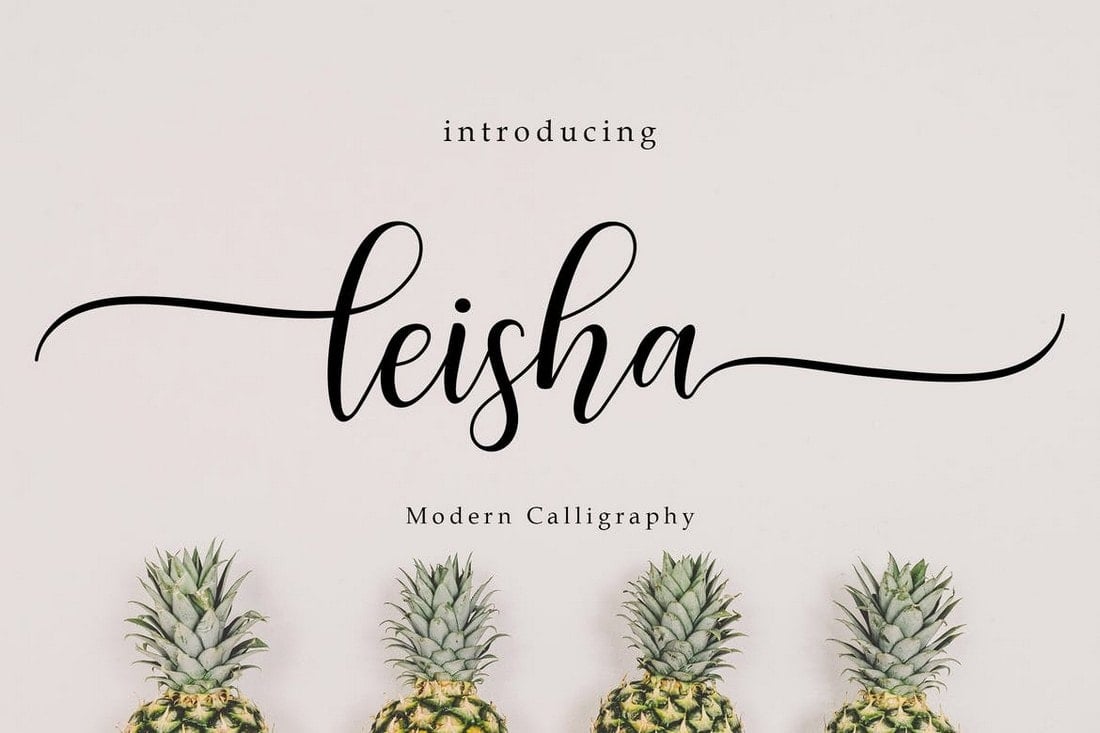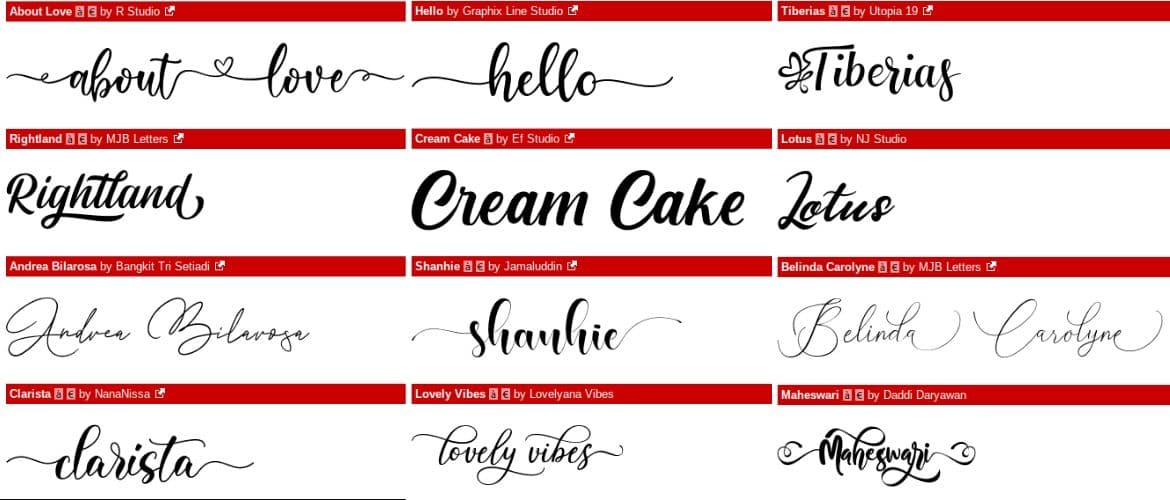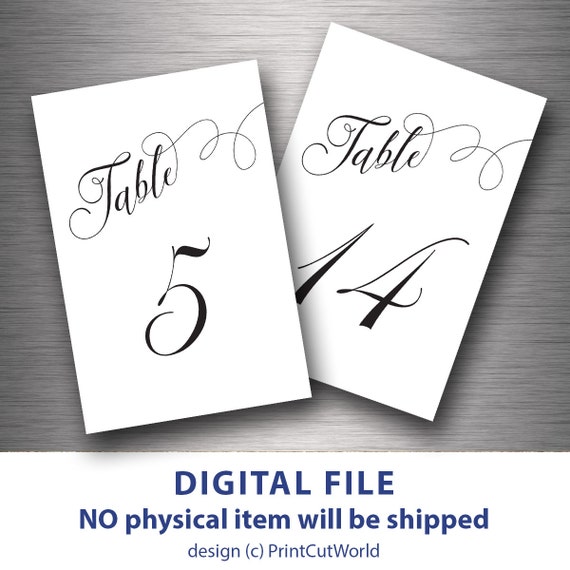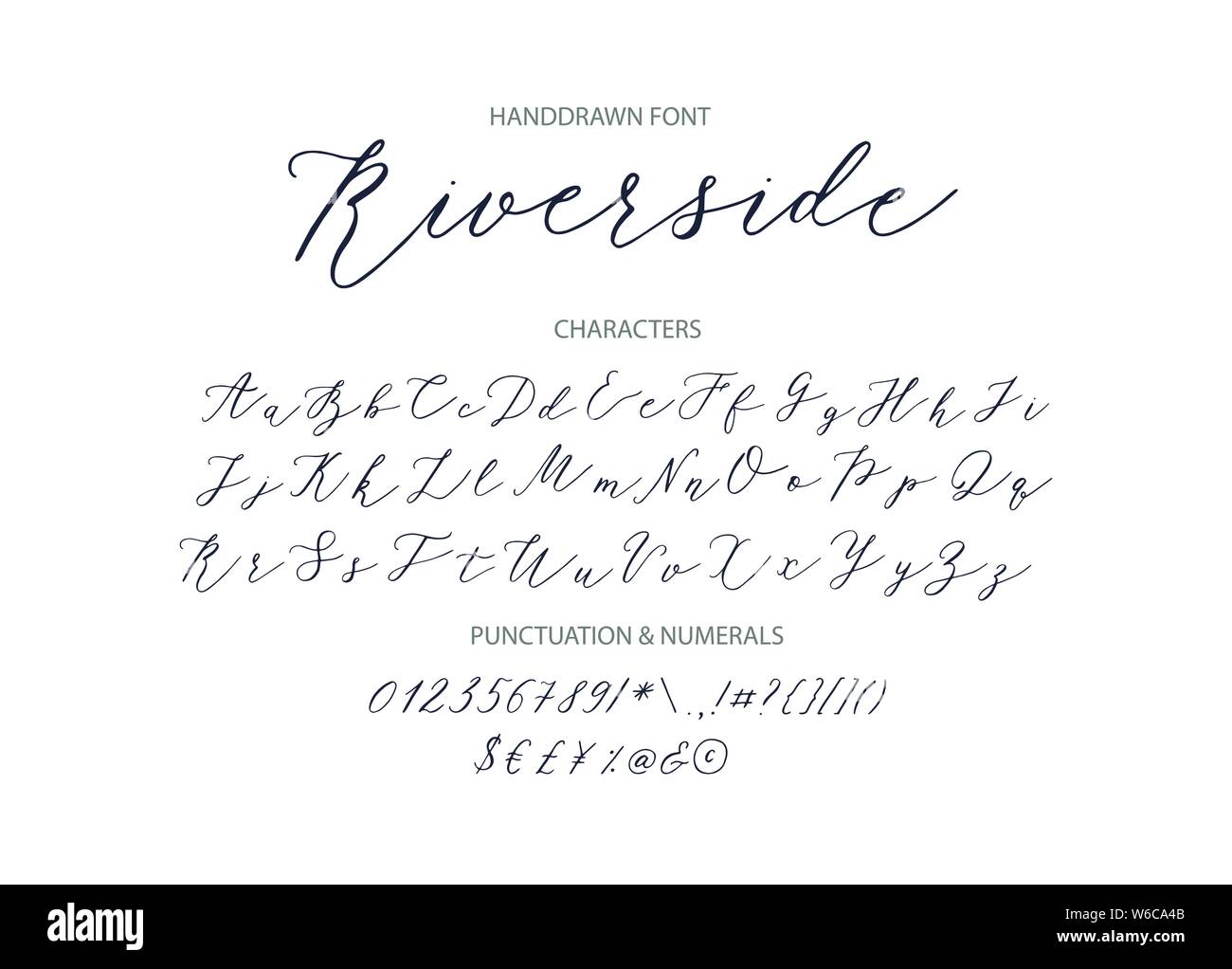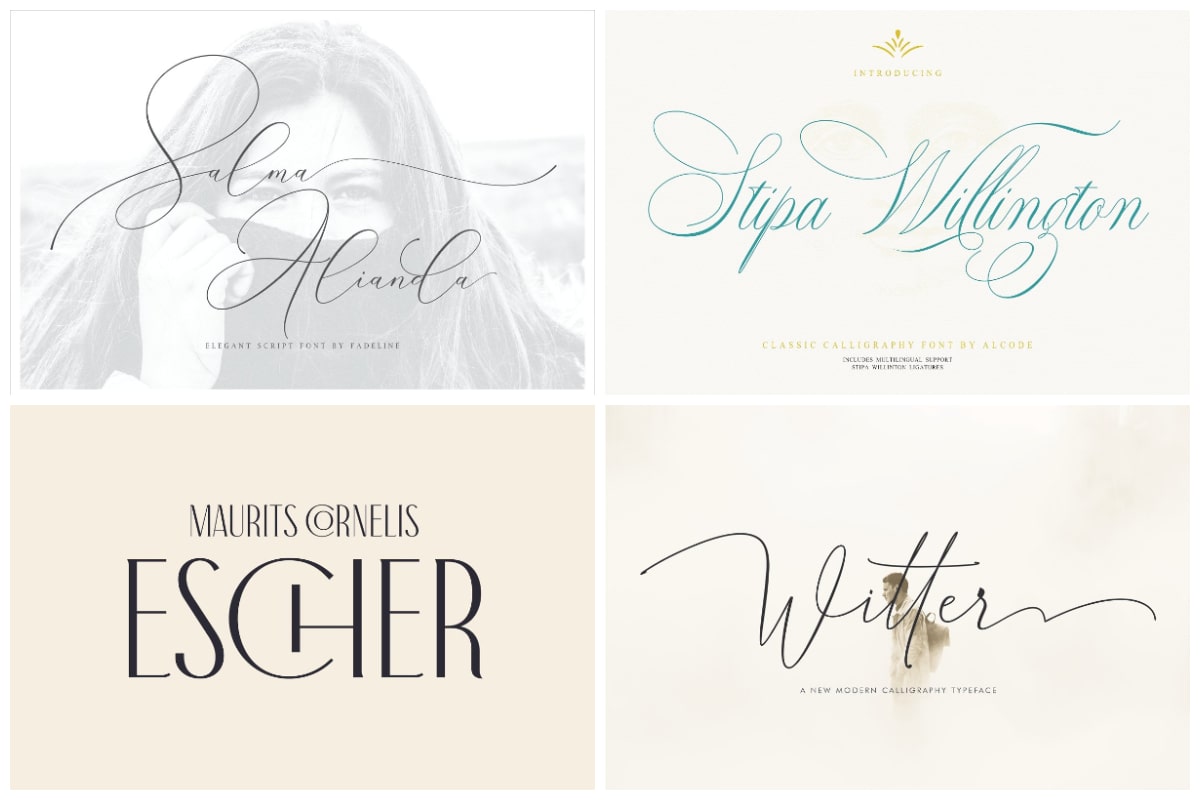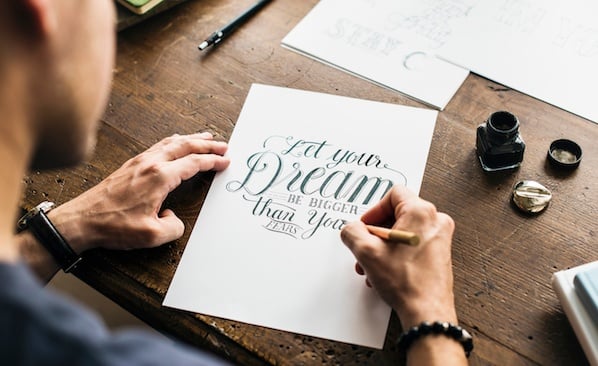
Modern calligraphy is any calligraphy style that does not follow the fundamental rules of traditional calligraphy scripts such as Copperplate Spencerian Italic Blackletter etc.
Modern calligraphy numbers font. This style can end up looking very similar to hand-lettered fonts but the difference is that calligraphy is written and not drawn. Aerotis is modern looking script calligraphy font that works great for a number of different occasions. Classics Baskerville Futura Garamond alongside hot new fonts Brice MonetaNovera.
This modern and attractive font comes with a set of creatively designed number digits and currency symbols as well as punctuations. Modern calligraphy typefaces differ from traditional calligraphy in that they do not adhere to specific lettering rules. It is the design and execution of lettering with a broad tip instrument brush or other writing instruments.
Looking for Modern Calligraphy fonts. Whether thats a party poster a wall artwork or personal greetinguse this modern calligraphy font to create a fun and energetic mood. It would not be wrong to call this the most beautiful font for graphic designers.
Calligraphy Generator calligraphy is a visual art related to writing. This free modern calligraphy font has been designed by Billy Argels font. You can use this font in your design product range like invitation mockup embossed branding card and others.